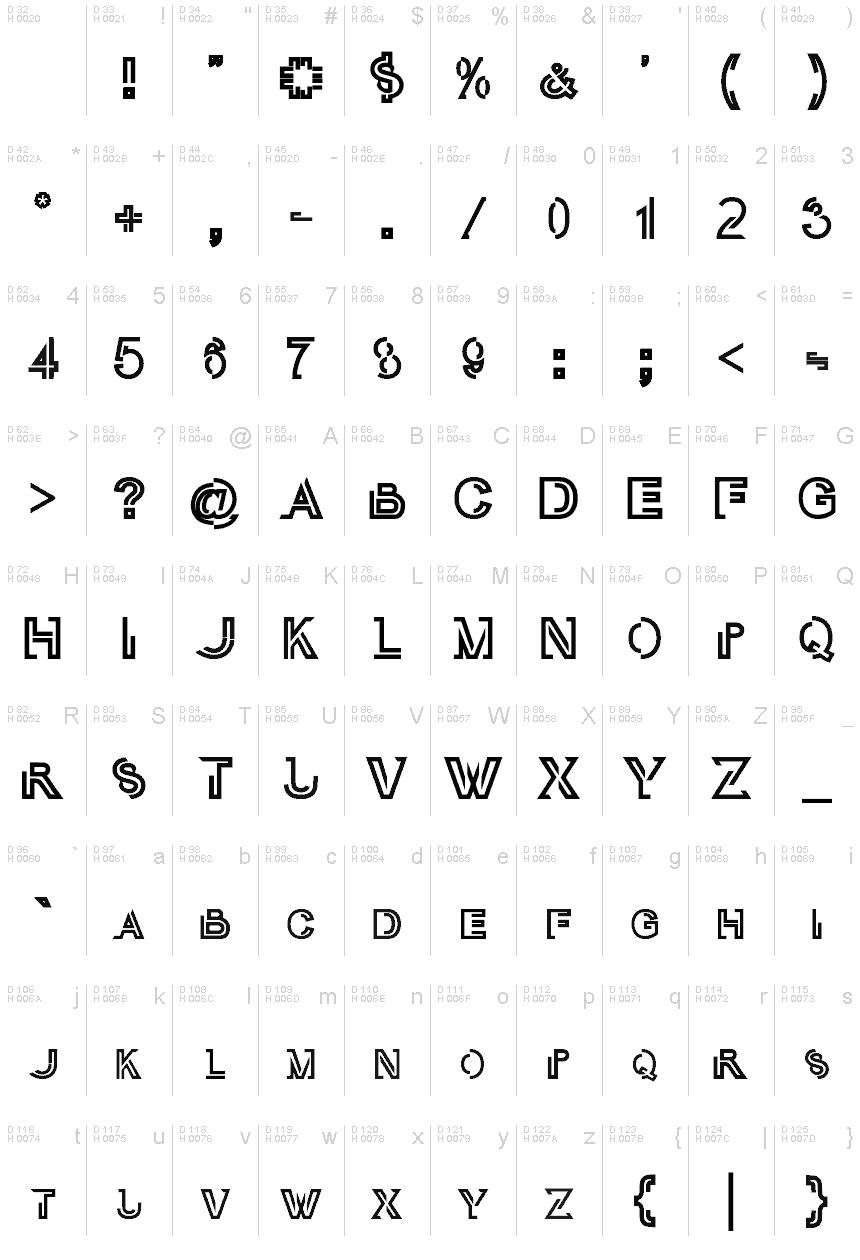
Oubli_CAP
Oubli CAP is a captivating display font, designed by Jeremy Calli, that exudes a distinct blend of elegance and intrigue. Its bold, angular forms create a striking visual impact, while the seamless interplay of positive and negative space adds a dynamic, almost architectural quality to the letterforms.
The font's unique aesthetic lends itself remarkably well to a variety of design applications, from eye-catching headlines and impactful branding to sophisticated editorial layouts and avant-garde artwork. Oubli CAP's versatility and commanding presence make it a compelling choice for designers seeking to elevate their projects with a font that commands attention and sparks intrigue.